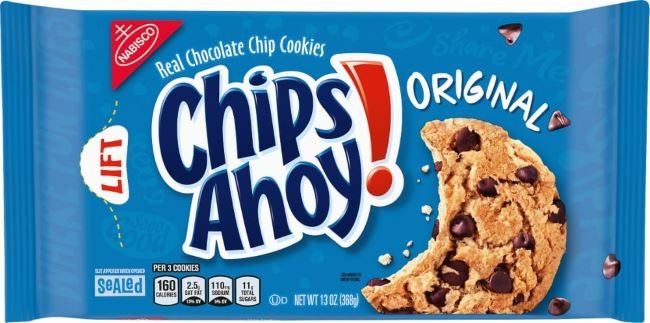
Chips Ahoy font — the exact face unidentified but approximated here with a free alternative — is the typography of a cookie brand that has been on American supermarket shelves since 1963 and has maintained its fundamental cheerfulness across every decade since, its bold, rounded letterforms communicating the specific pleasure of a food product designed to be enthusiastic about itself before it has even been opened. The chunky, approachable display lettering that characterises the Chips Ahoy identity belongs to the tradition of American snack food package design where the typography is doing emotional labour as much as informational work — it is not just labelling the product but performing the product’s personality, and that personality is uncomplicated, sweet, and reliably present. The freely available Chips Ahoy Font Alternative channels this warm, snack-brand exuberance.